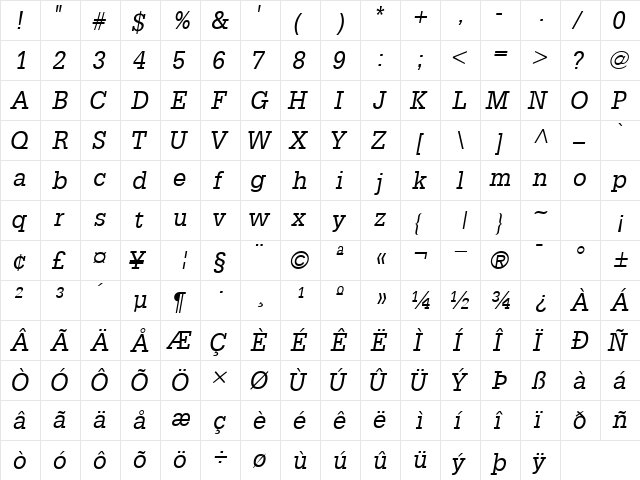
InstallationSSK Italic
Design Context for InstallationSSK Typeface
InstallationSSK is a composed and adaptable typeface that performs quietly and consistently across a wide range of design contexts. Its italic angle brings a sense of urgency and motion to the letterforms.
Pro Tip: Try InstallationSSK for annotation and caption copy alongside an upright companion — the contrast in angle creates a dynamic but ordered typographic system.